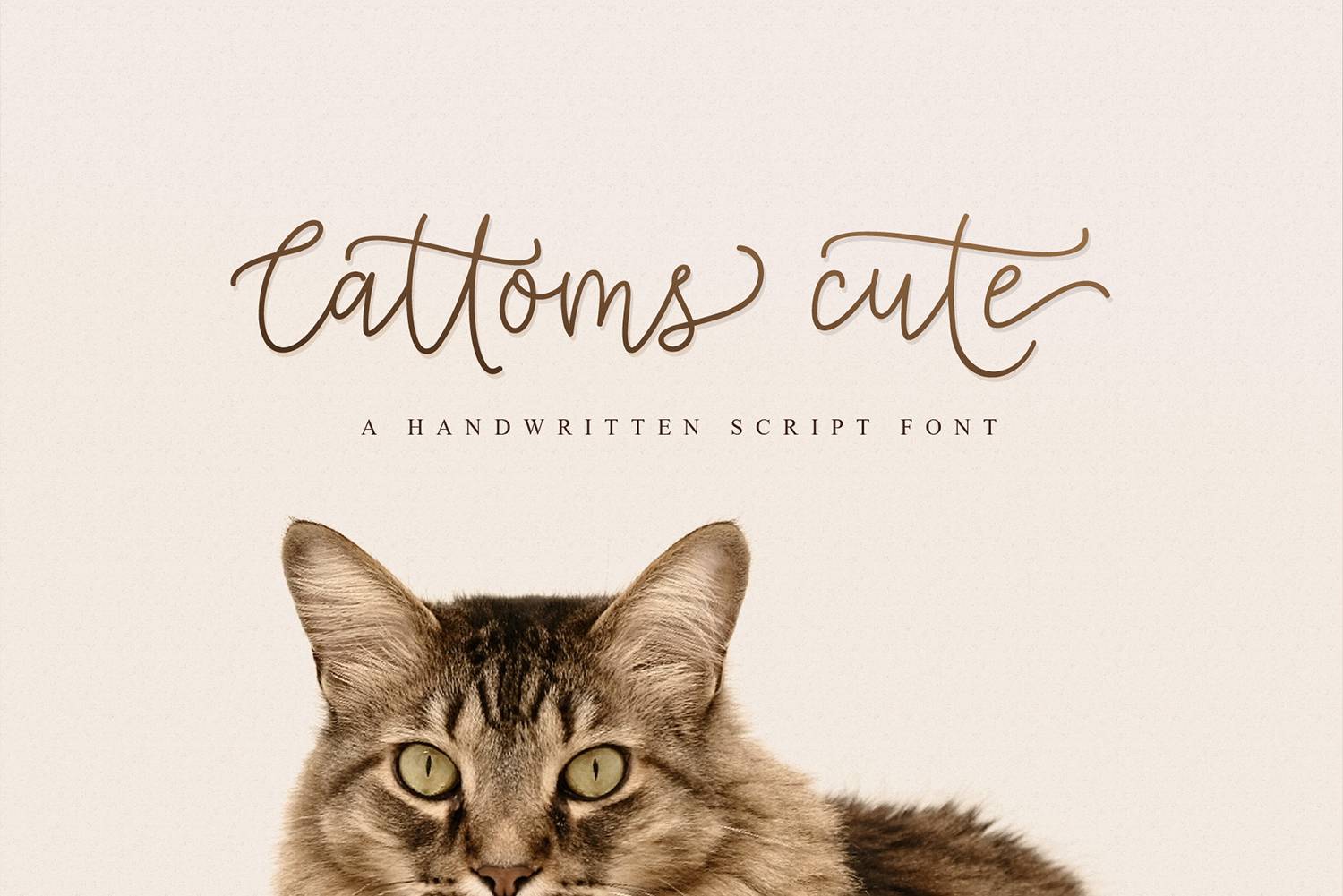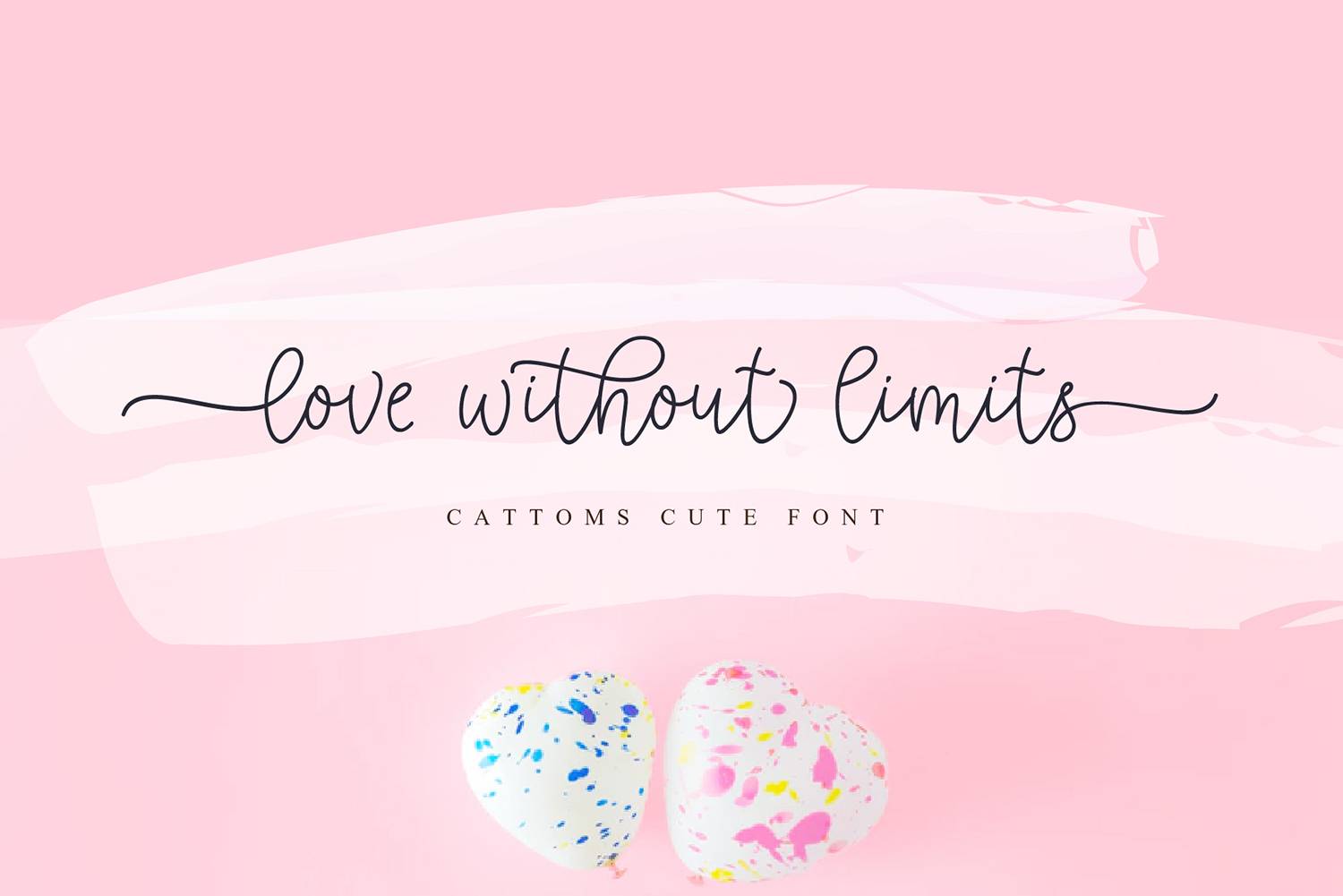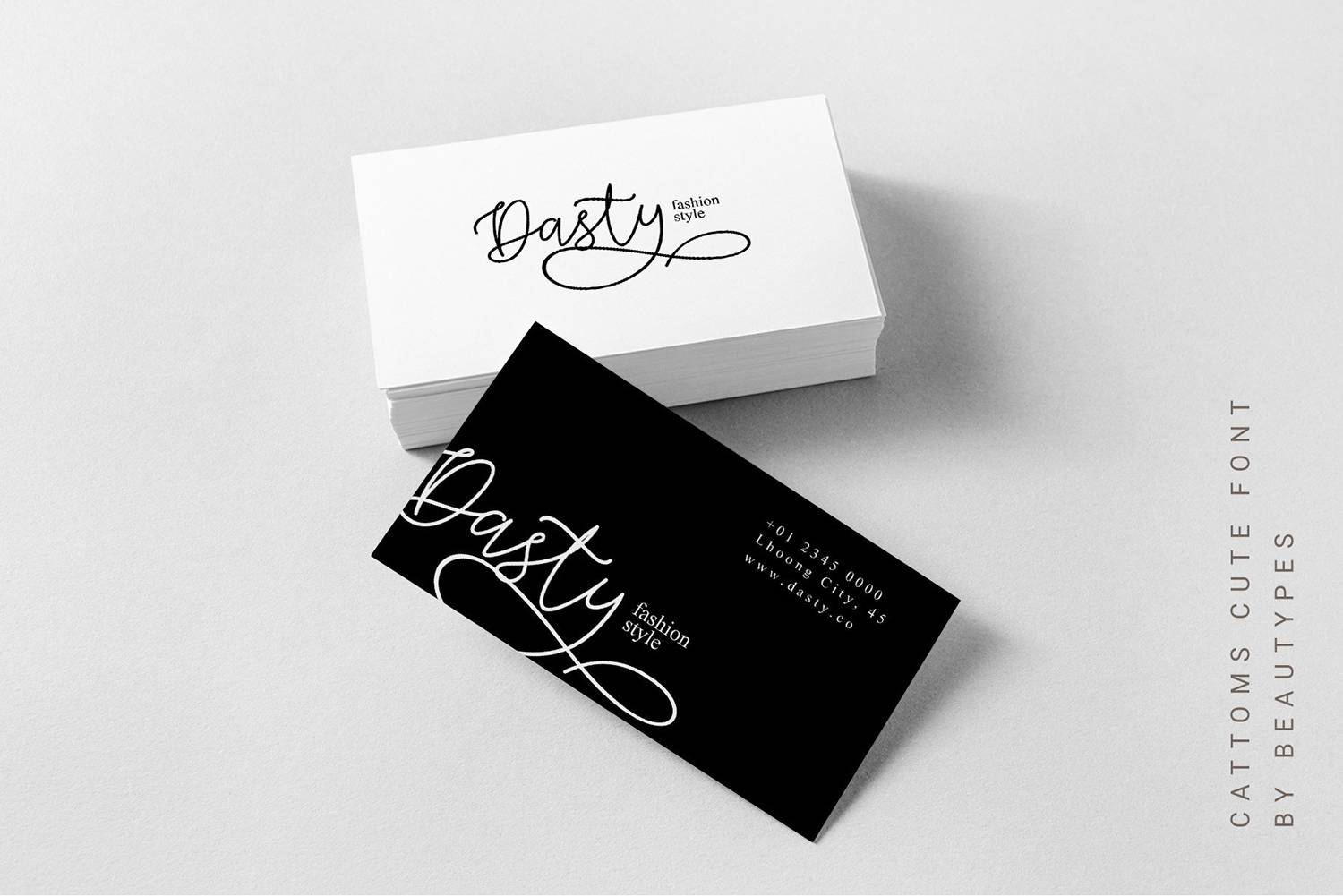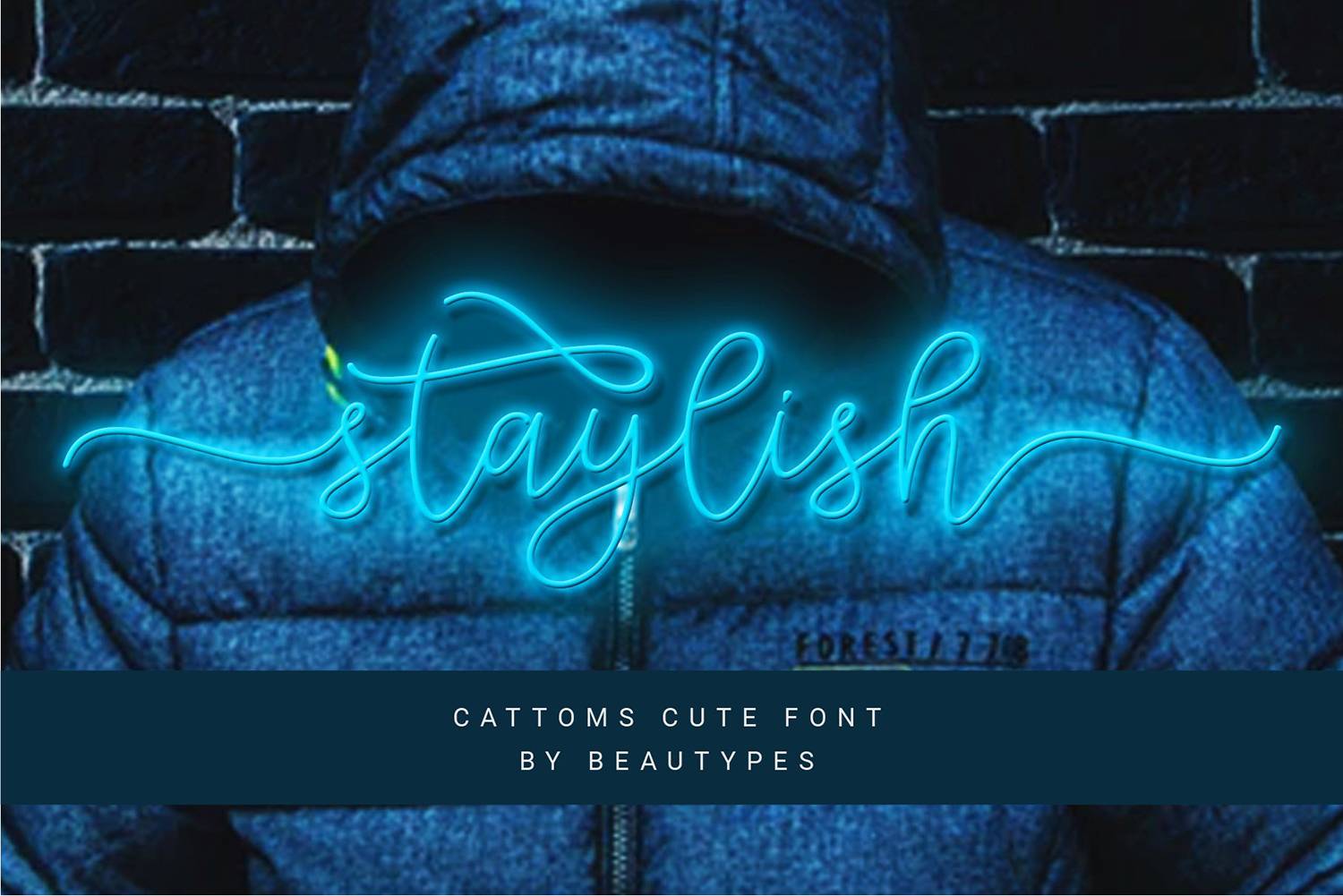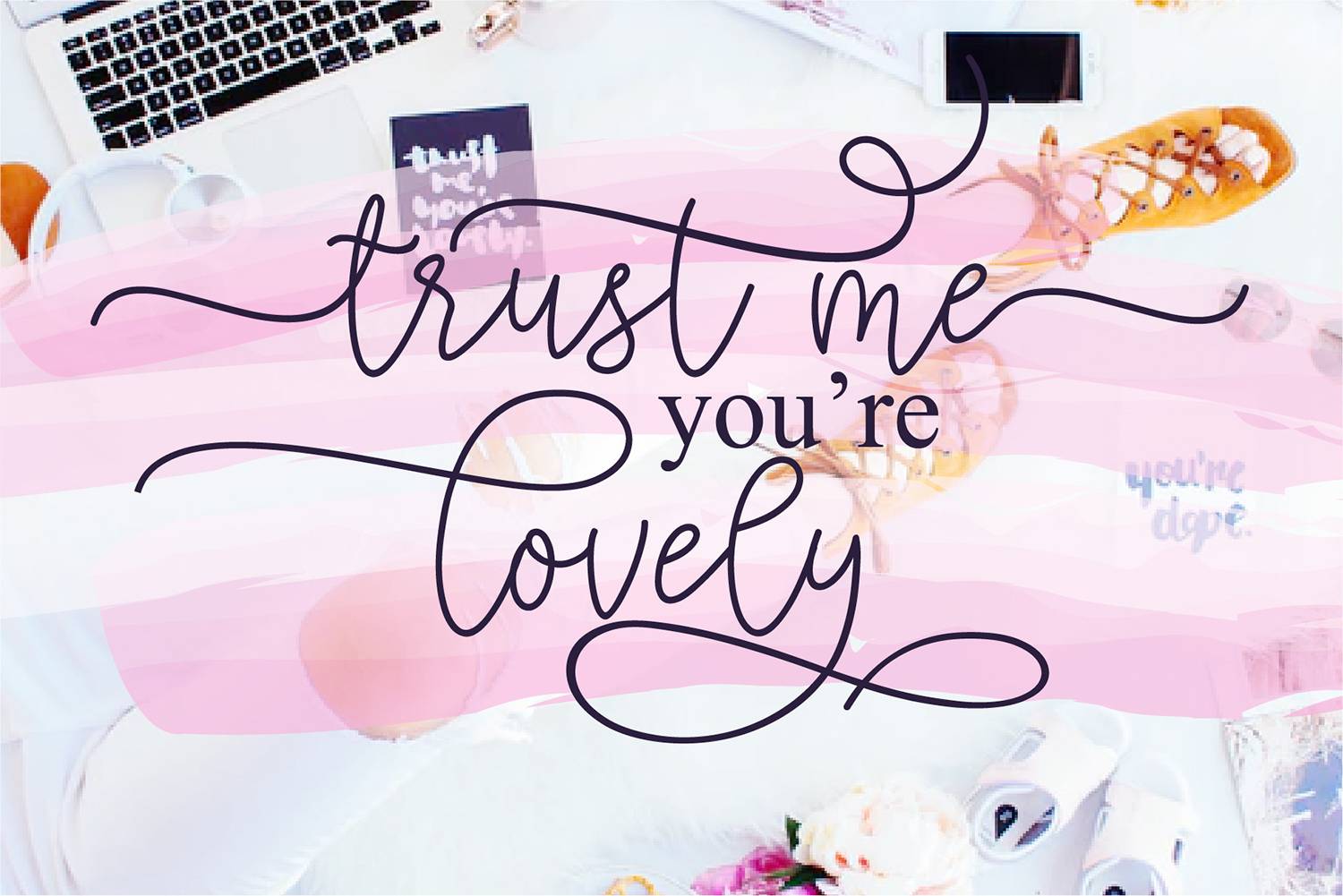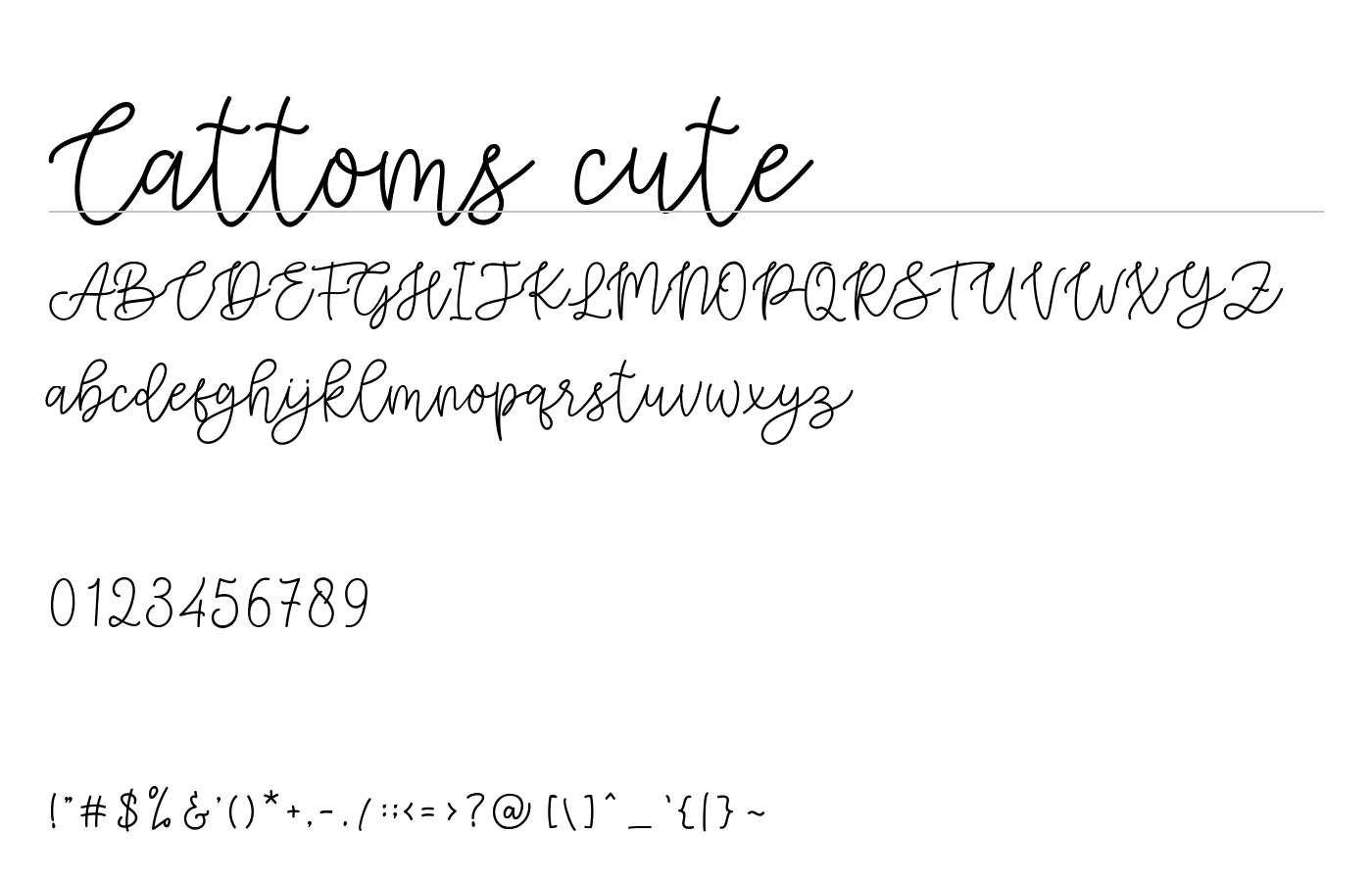
Cattoms Cute Font is a delicate, handwritten script font with a light weight and airy feel, featuring graceful, flowing letterforms that mimic natural penmanship. Its tall x-height and rounded loops give it a friendly and inviting personality, ideal for playful and charming designs. This font works beautifully for personal branding, invitations, greeting cards, and any project seeking a warm, approachable touch.
Cattoms Cute Font
About Cattoms Cute Font
| Font family | Cattoms Cute Font |